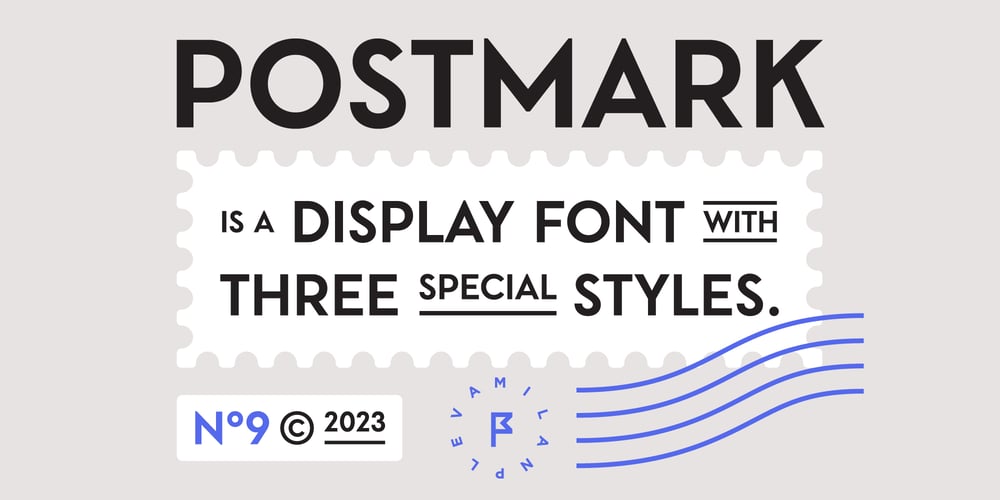
Postmark Display Font Family was designed by Milan Pleva and published by Milan Pleva. Postmark Display contains 4 styles and family package options. Postmark Display is a clean geometric display font with one basic and three special styles: Postmark Display Style 1 Postmark Display Style 2 Postmark Display Style 3 Special styles were created to complement the main font and to differentiate words or sentences. Postmark Display is ideal for headlines, headers, logos, labels, packaging, magazines, invitations, etc.FEATURES Basic latin alphabet A-Z Three special styles (each with 50 basic glyphs) 56 Accented characters Numbers, Punctuation, Currency, Symbols, Math symbols & Diacritics Old style figures LANGUAGE SUPPORTLatin 1 + Latin 2Western Europe and Americas: Afrikaans, Basque, Catalan, Danish, Dutch, English, Faroese, Finnish, French, Galician, German, Icelandic, Irish, Italian, Norwegian, Portuguese, Spanish and Swedish.Latin-written Slavic and Central European languages: Czech, German, Hungarian, Polish, Romanian, Croatian, Slovak, Slovene.Enjoy Postmark Display!